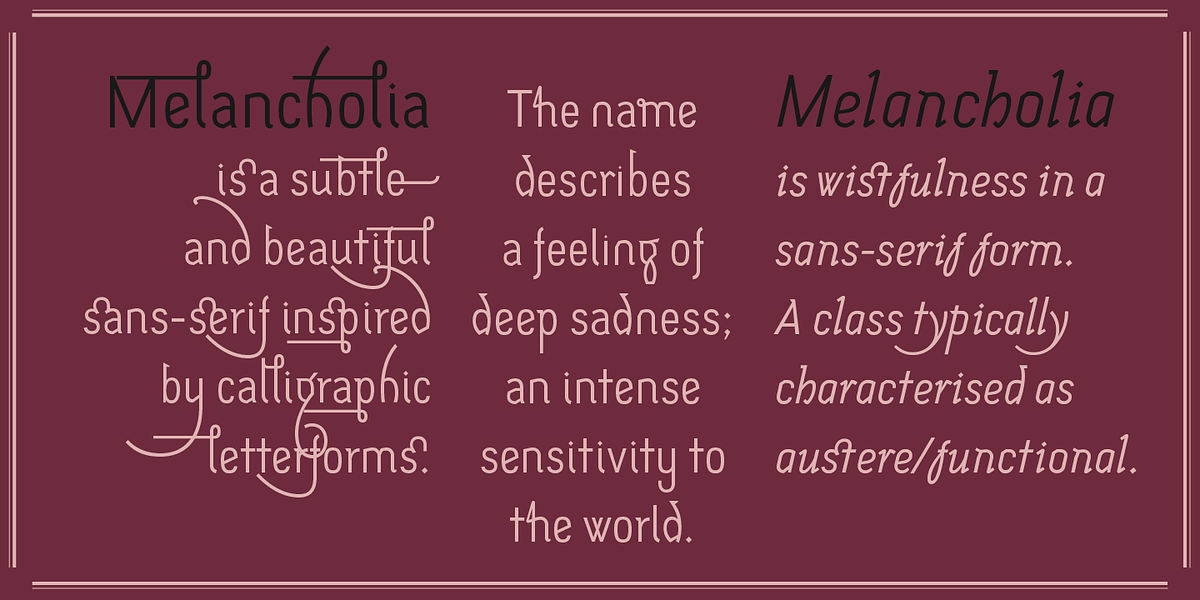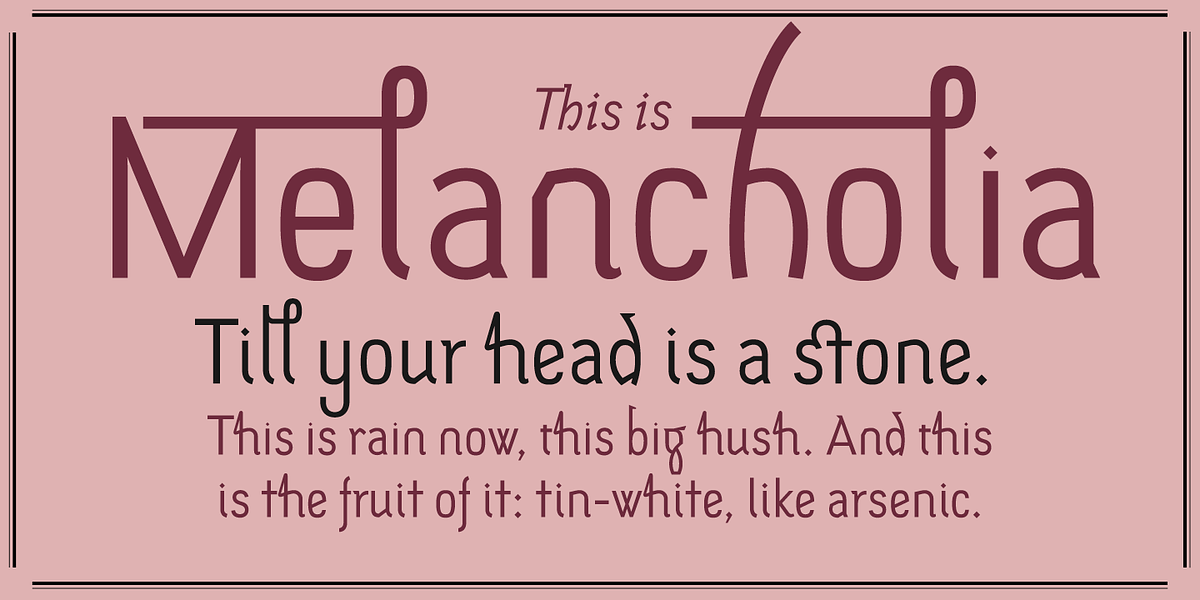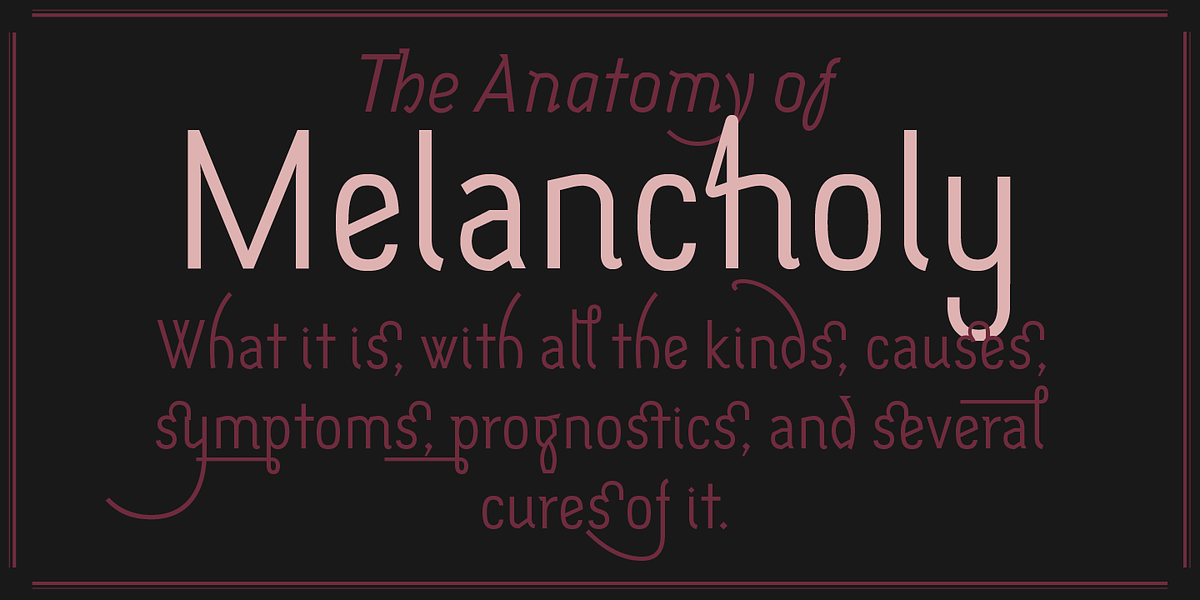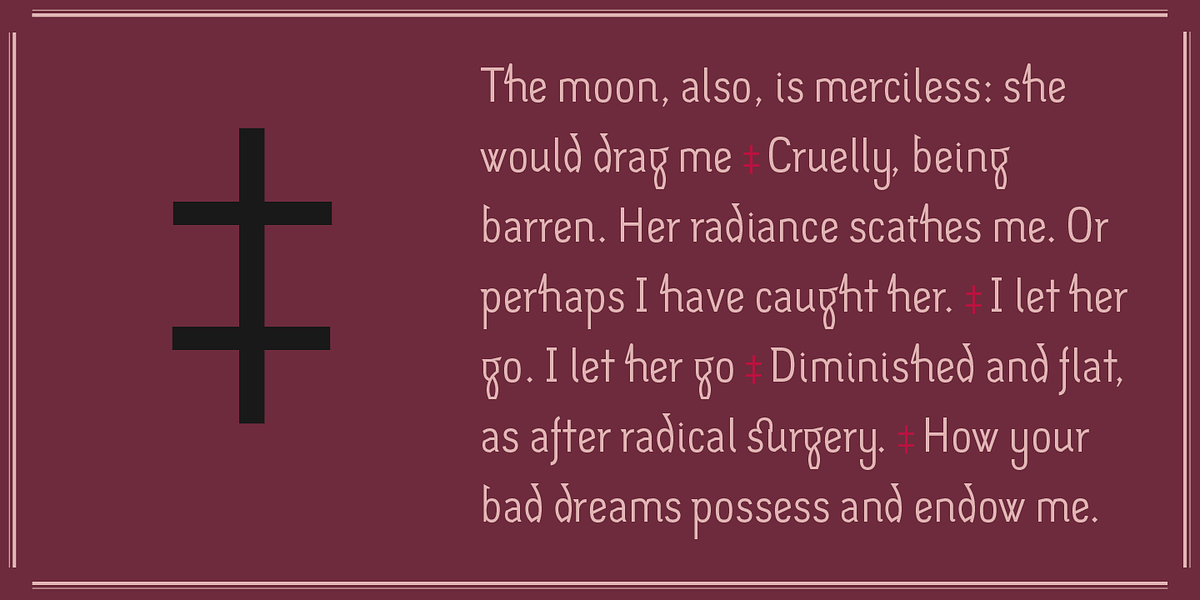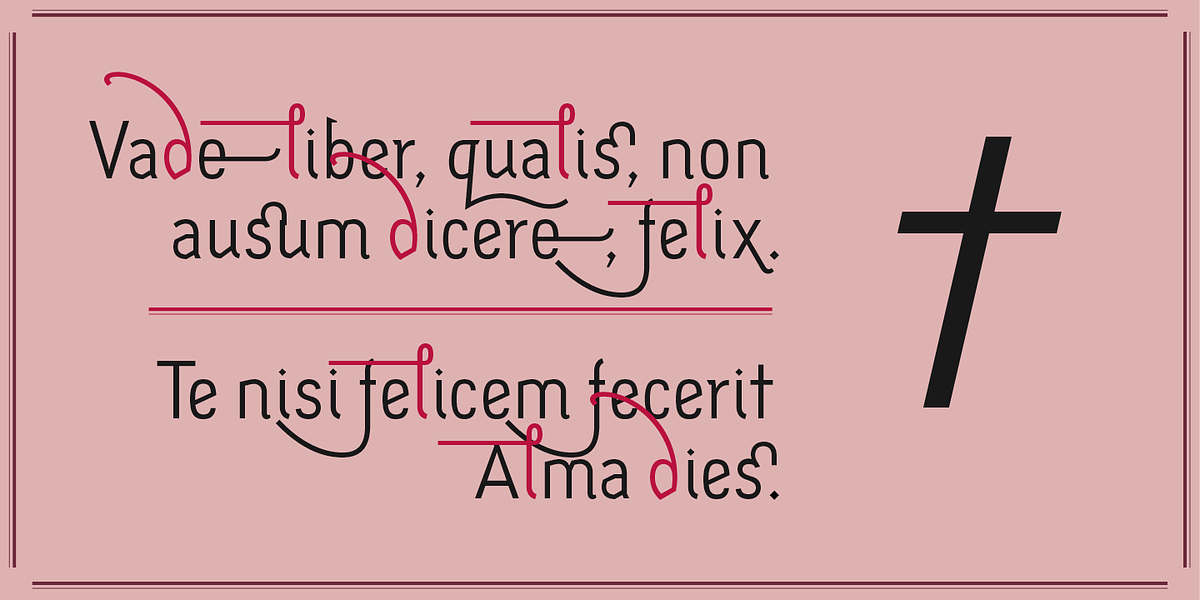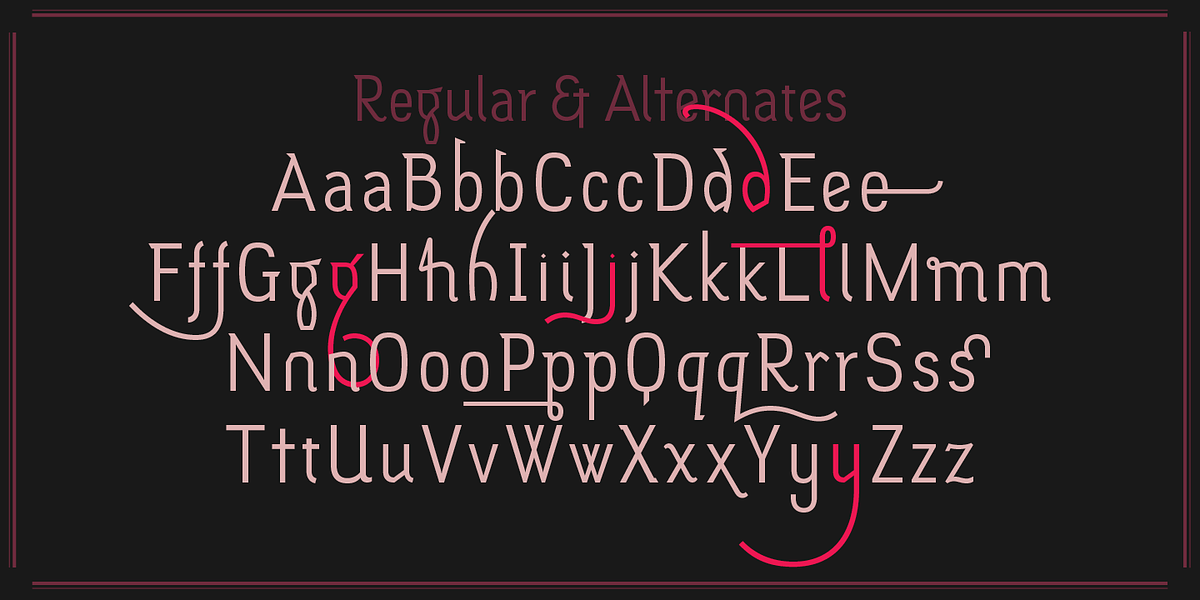
Melancholia
Melancholia is a humanist sans serif font inspired by calligraphic letterforms. It features true italics influenced by old-style serif italics and includes stylistic alternates and calligraphic-style swash characters.